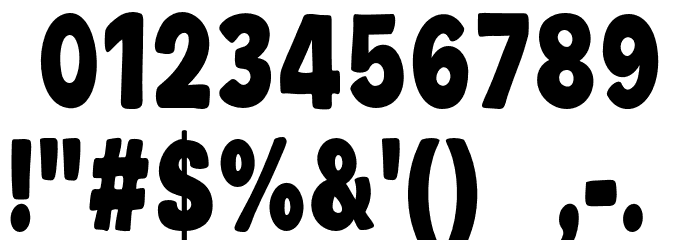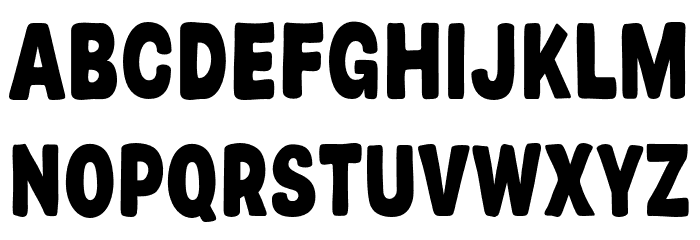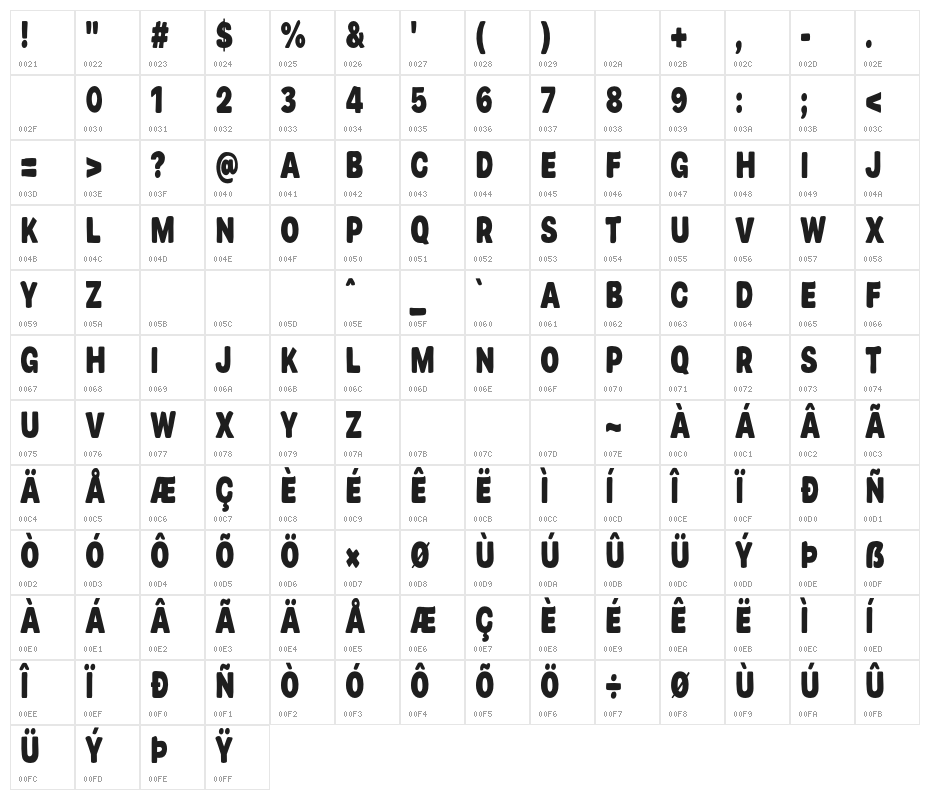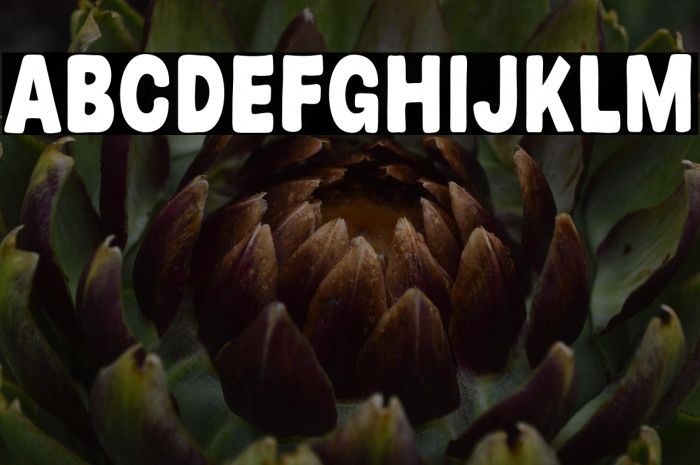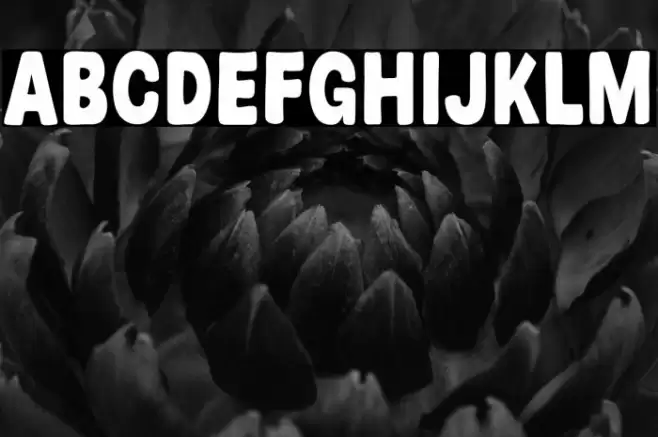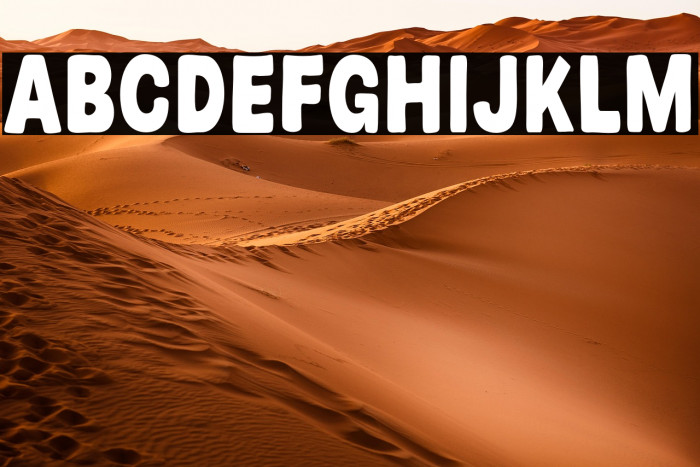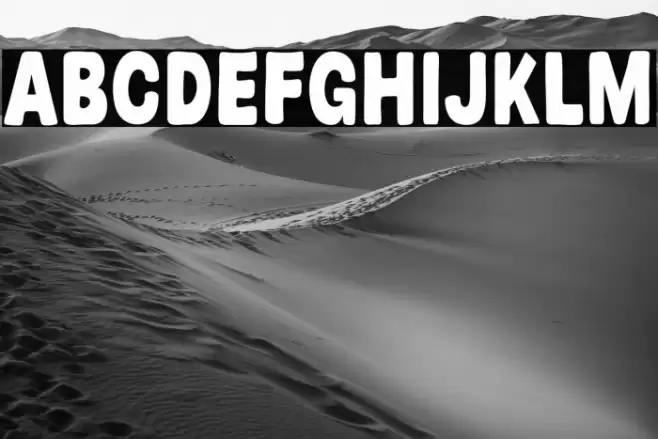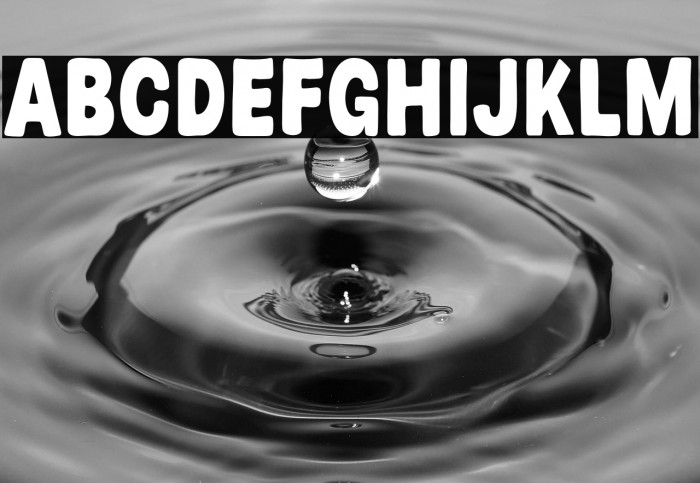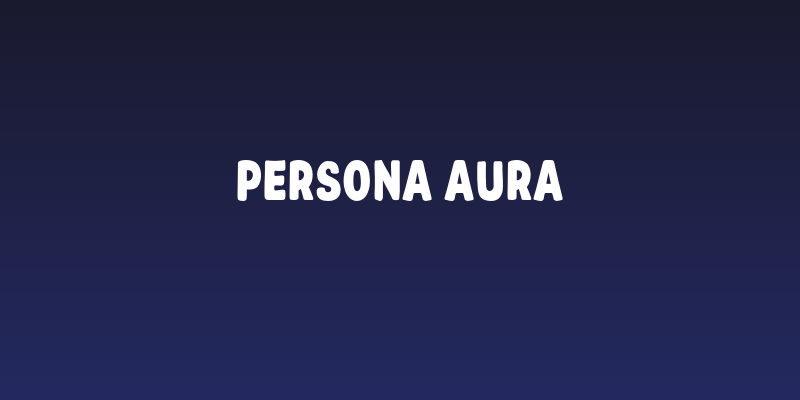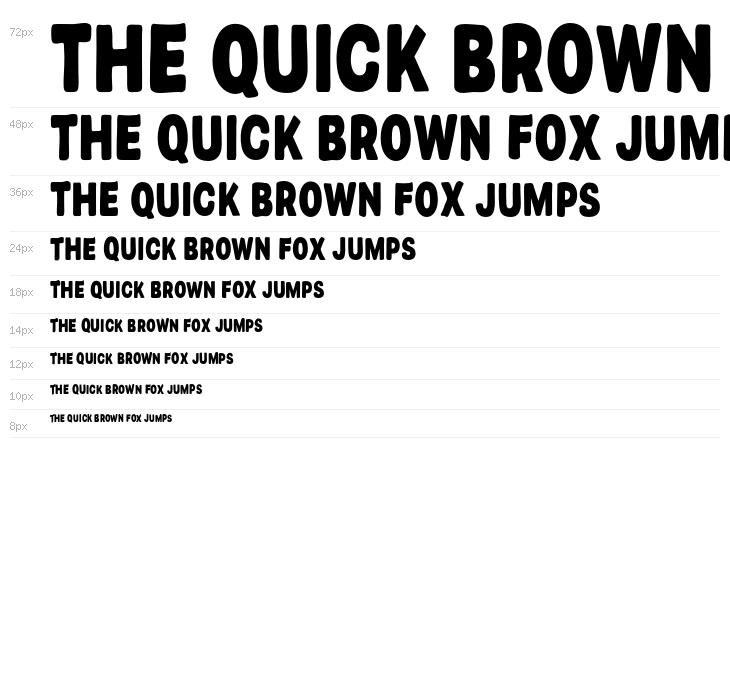
Persona Aura Font
Persona Aura Description
This font features bold, rounded characters with a playful and friendly appearance. The letters are uniformly thick, giving it a strong presence while maintaining a soft, approachable feel. The rounded edges and consistent stroke width contribute to its casual and informal style. The numerals and special characters follow the same design principles, ensuring a cohesive look across all elements. This font is ideal for projects that require a touch of whimsy and warmth, making it suitable for children's books, playful branding, or any design that aims to convey friendliness and approachability.
| Overall Style | Playful, Friendly |
| Proposed Projects | Children's books, playful branding, casual invitations, friendly advertisements. |